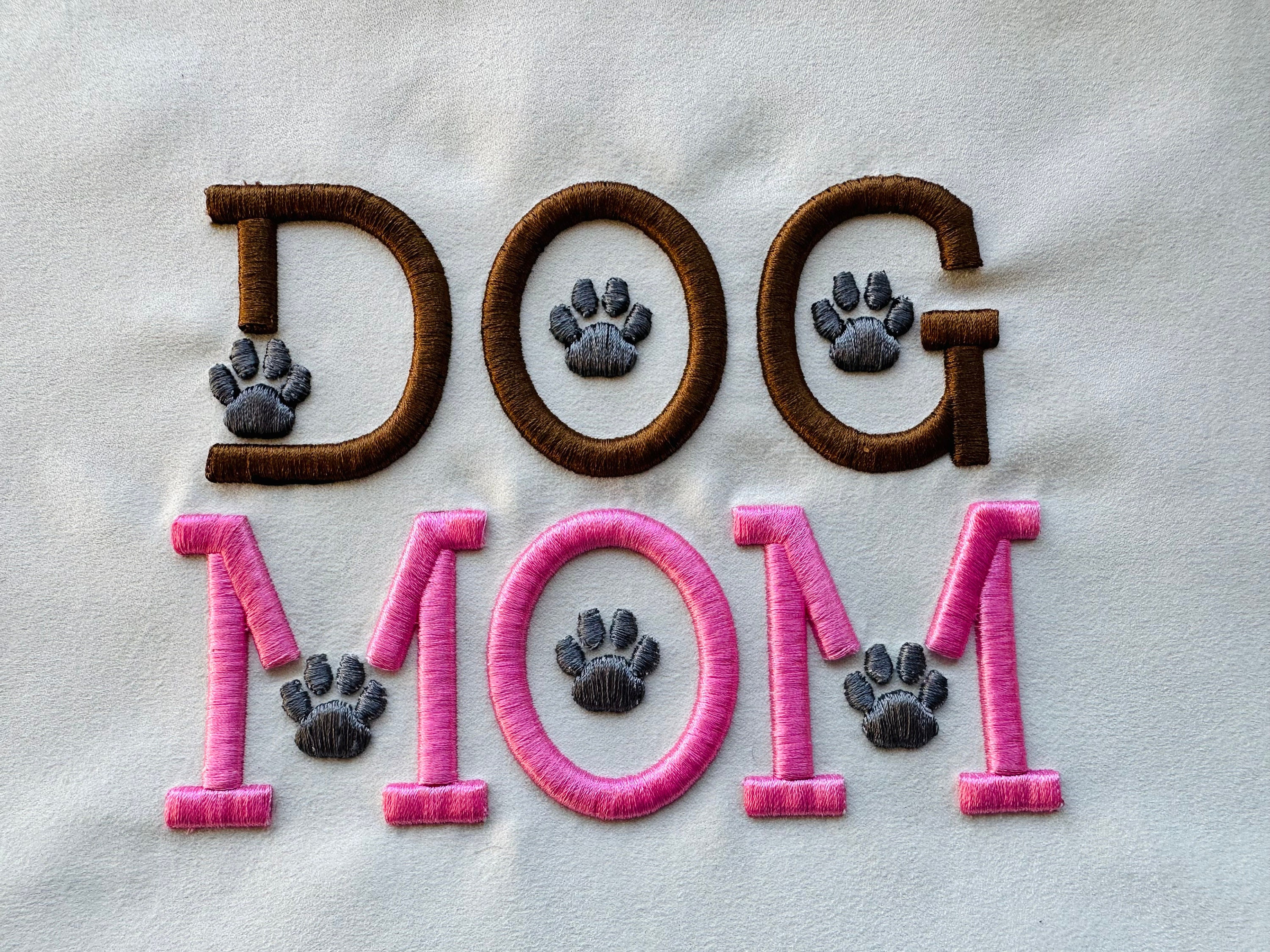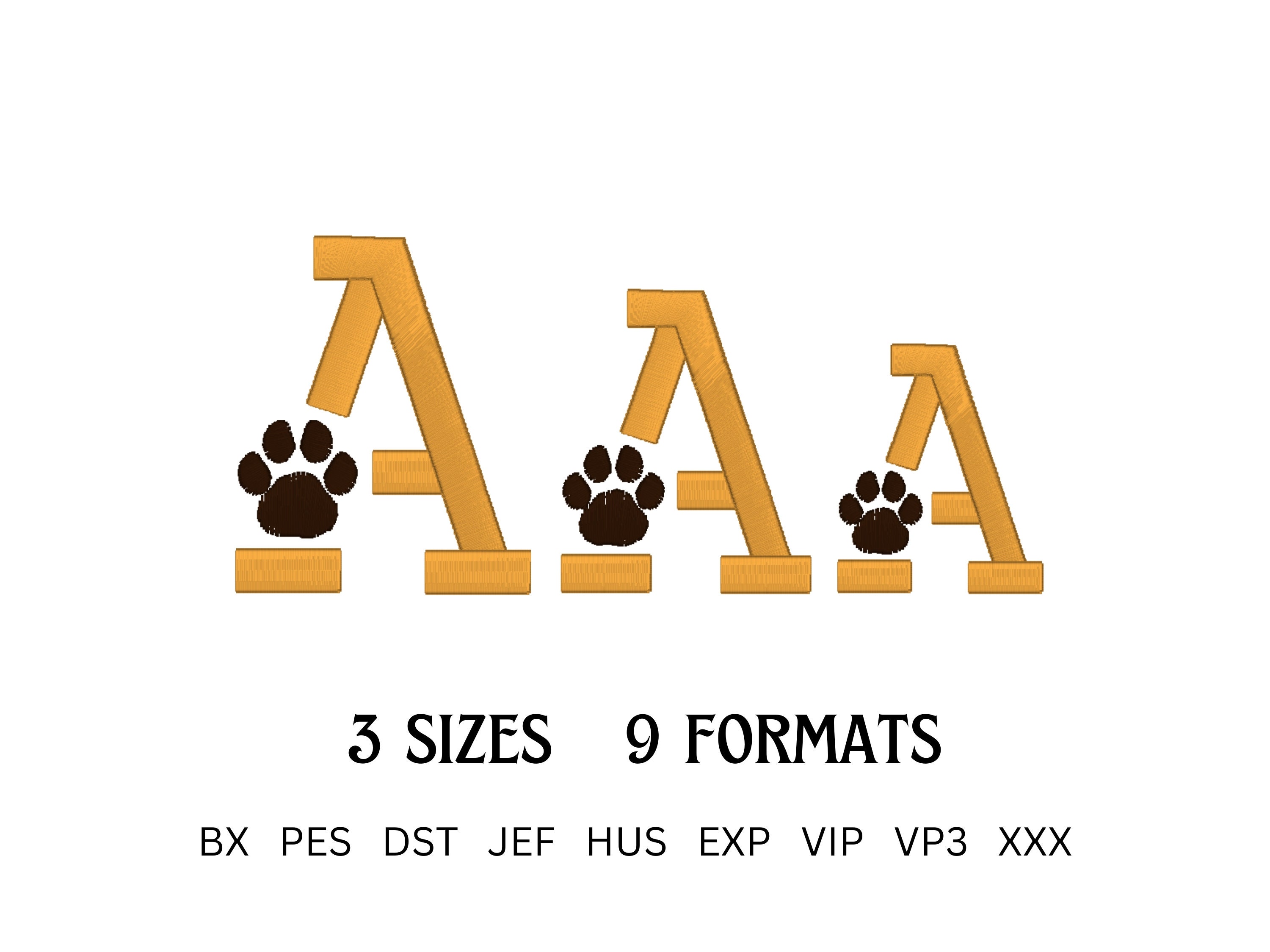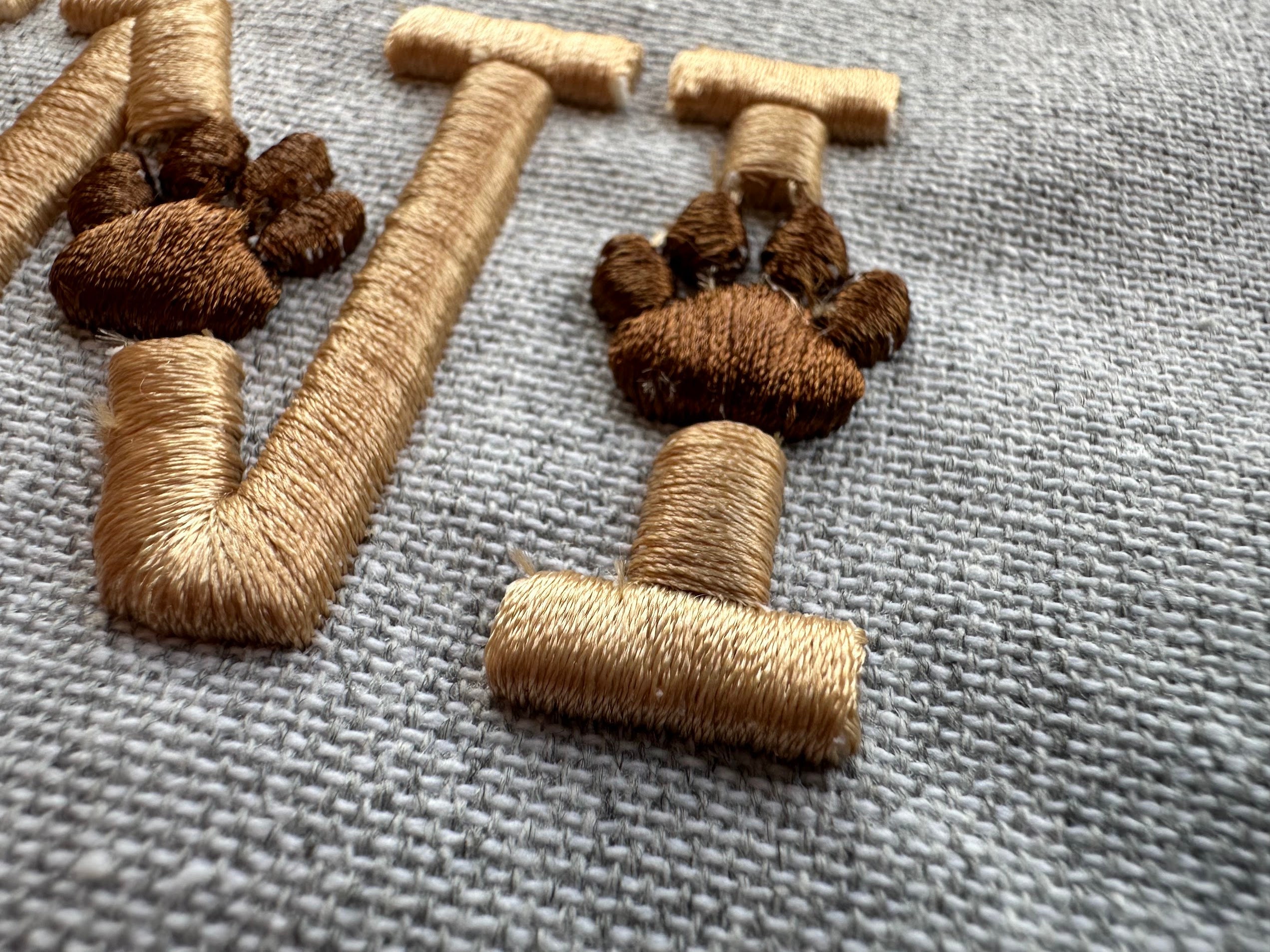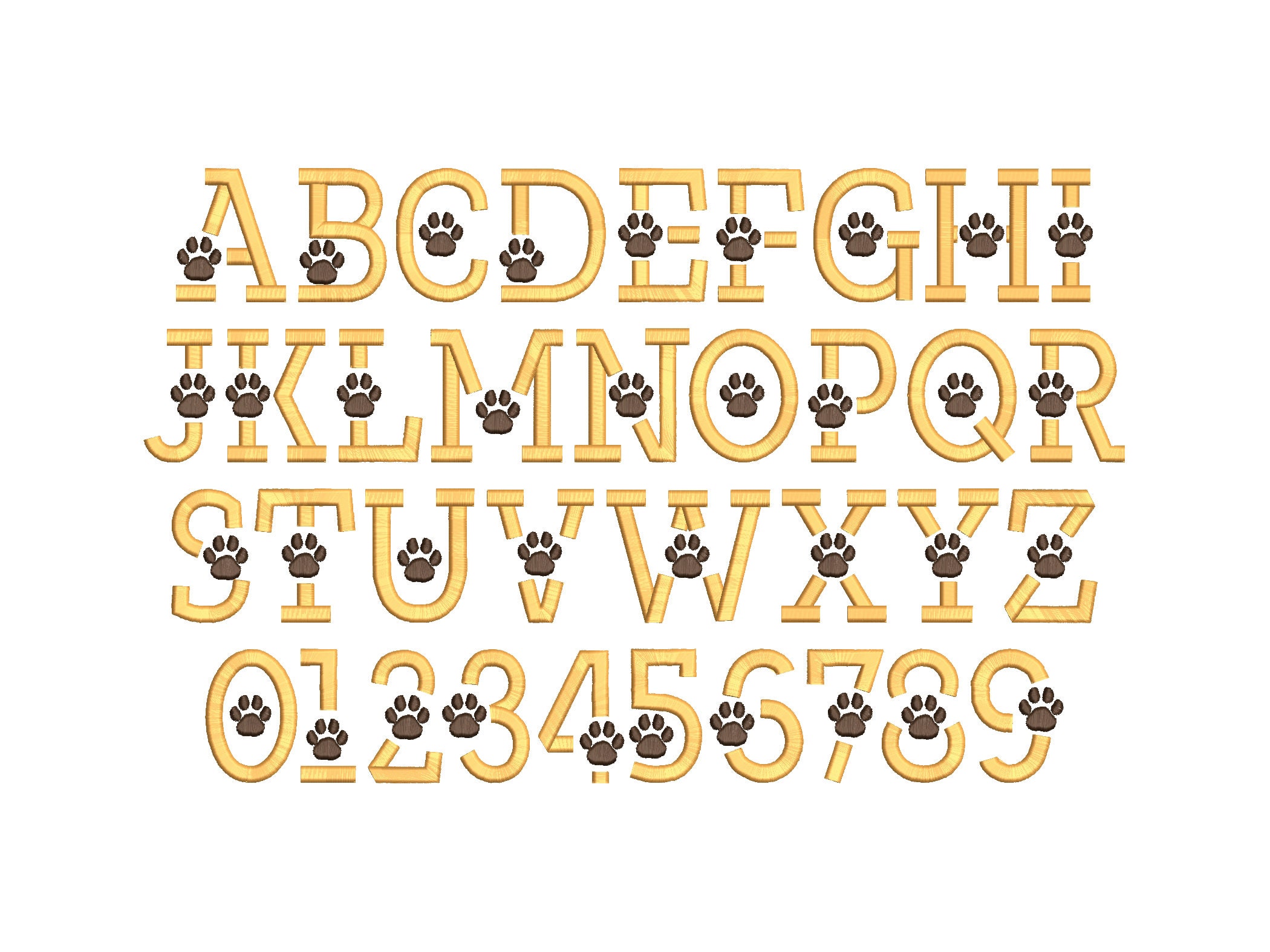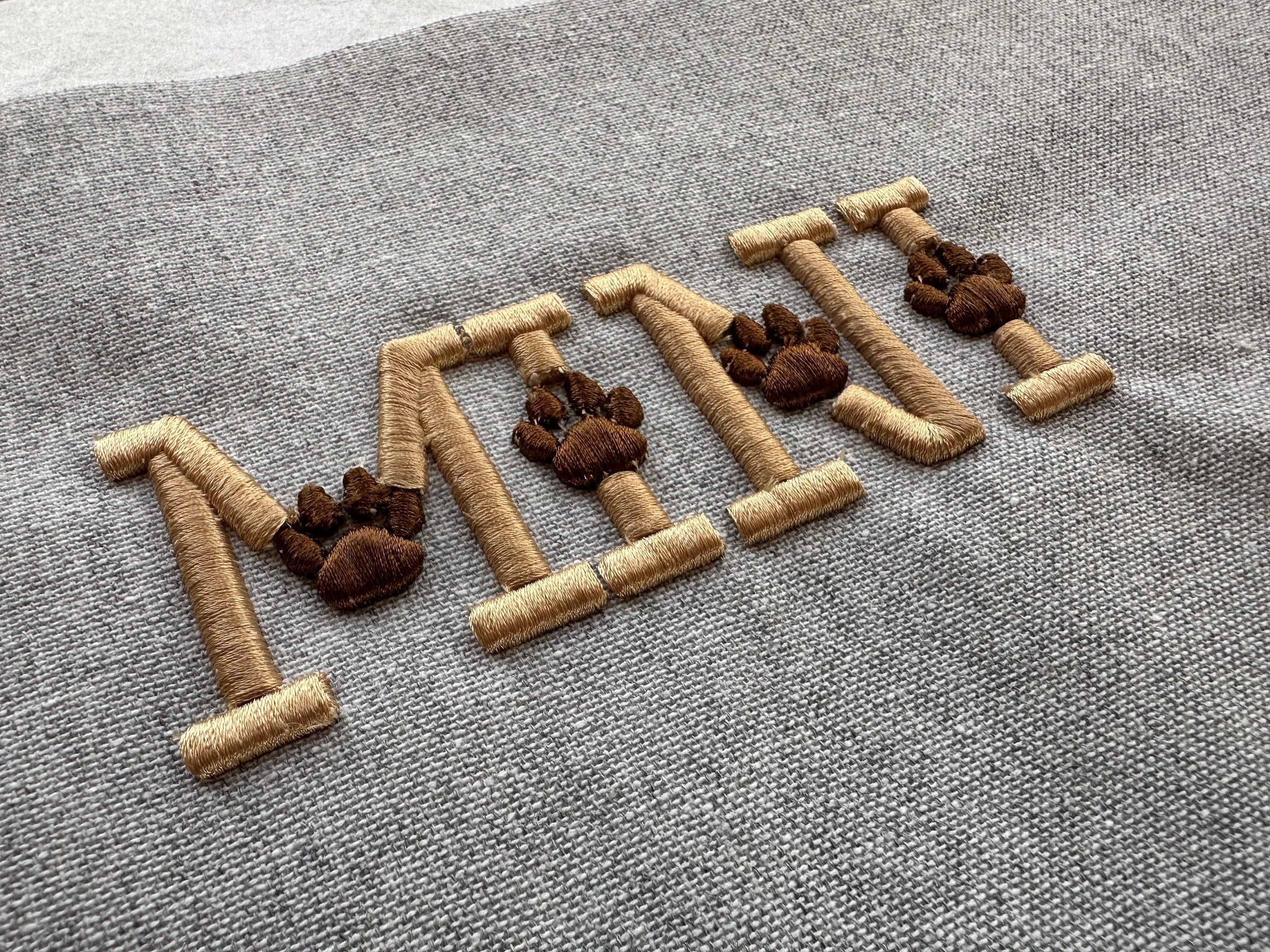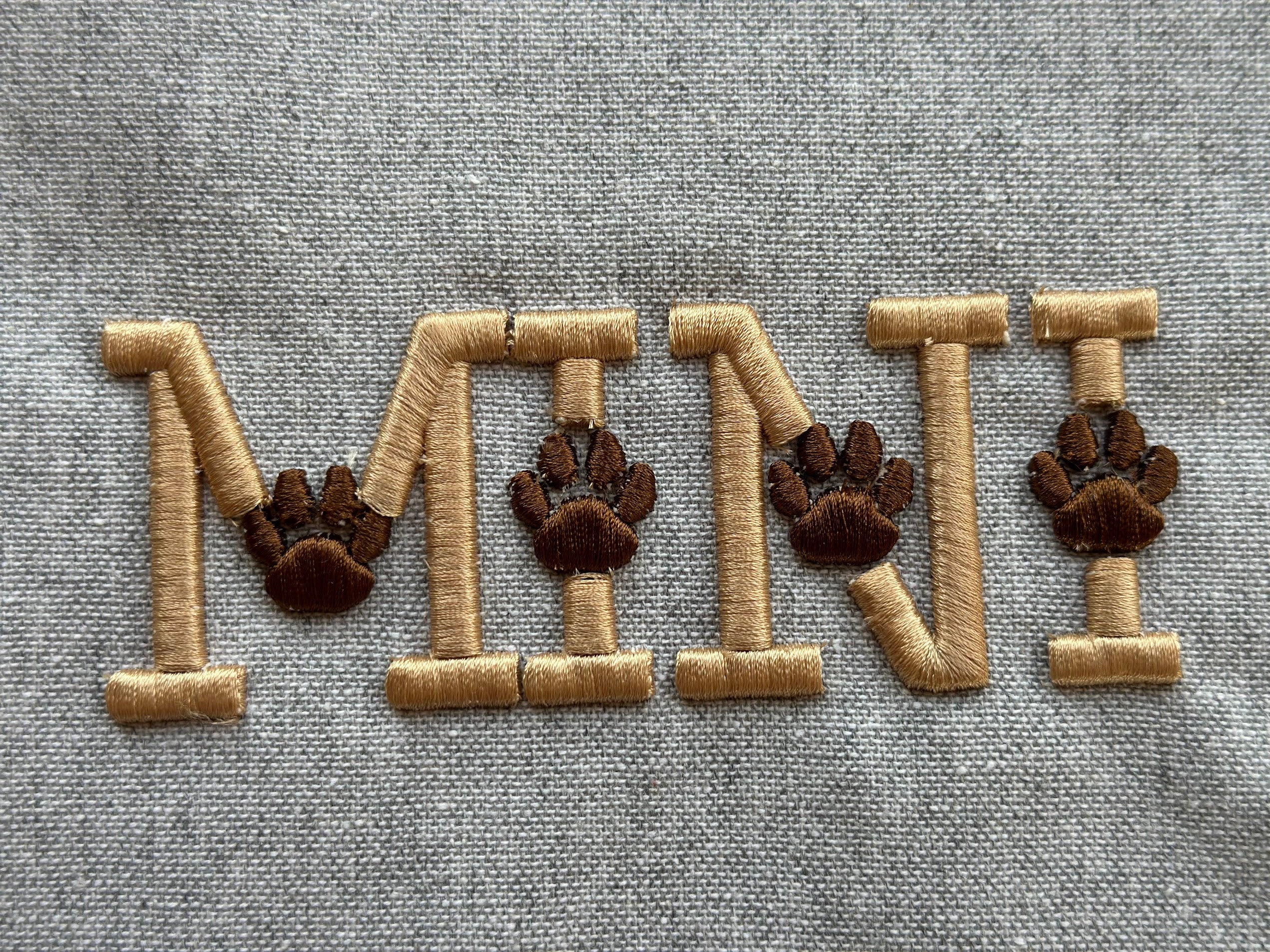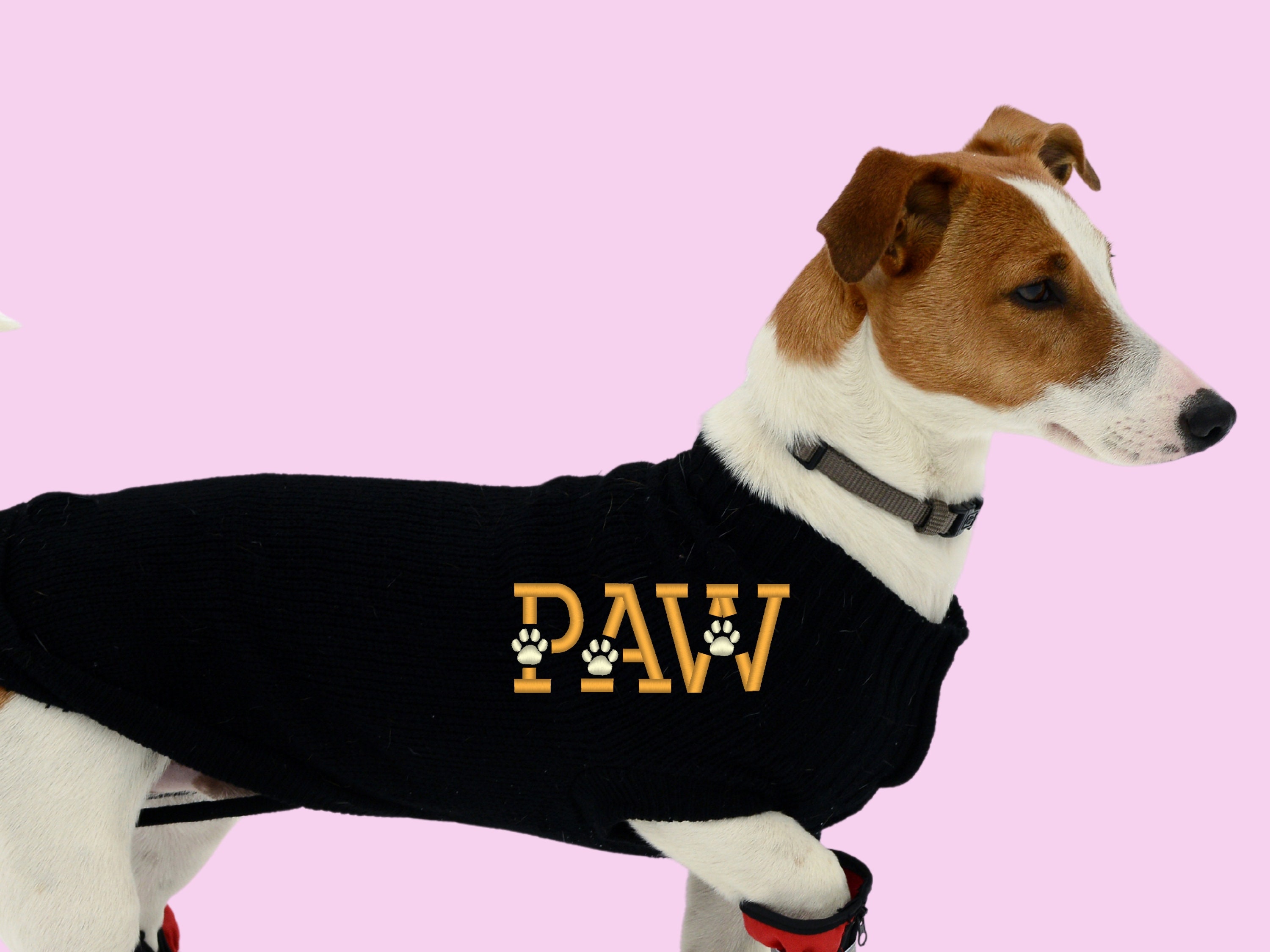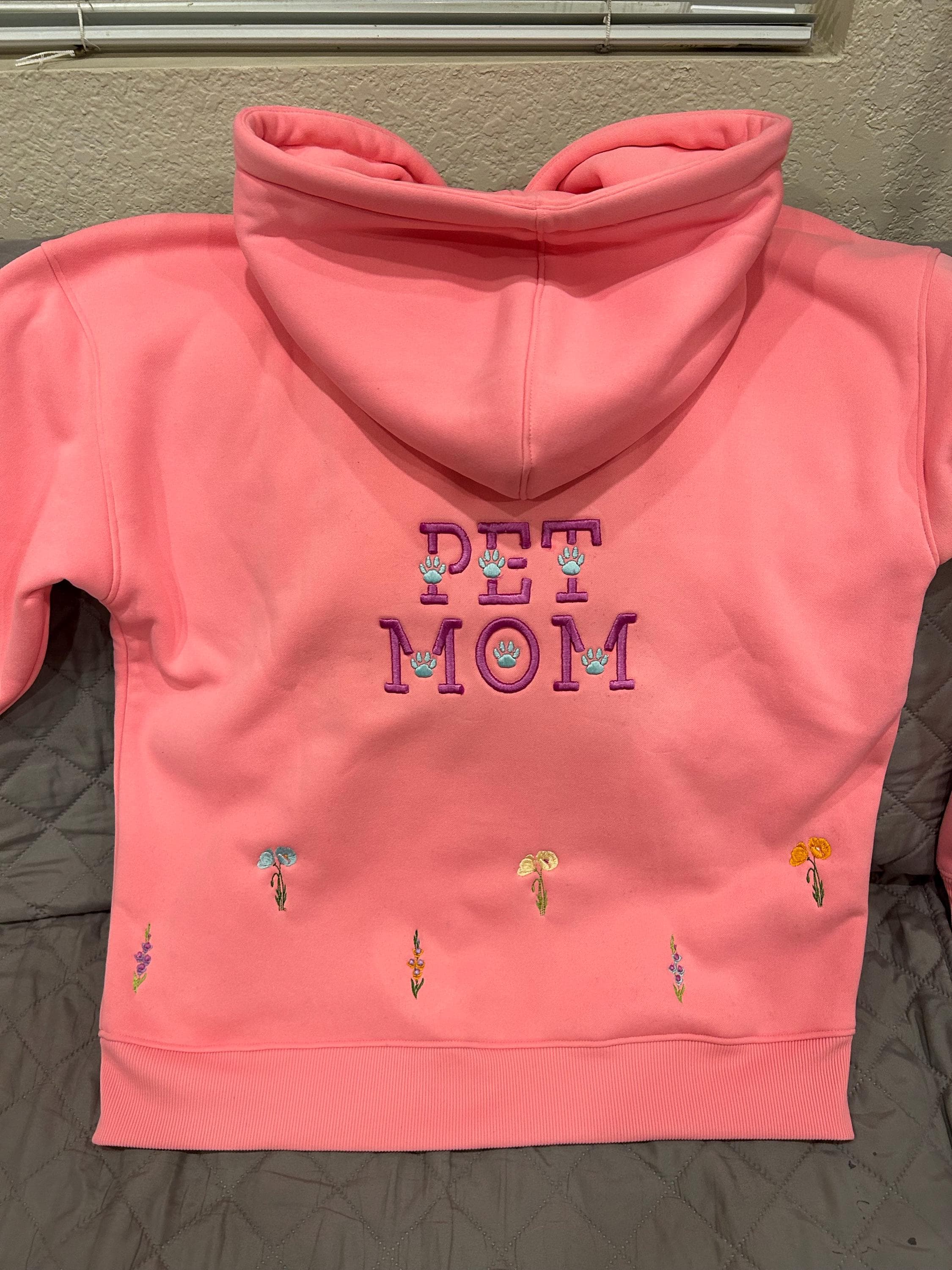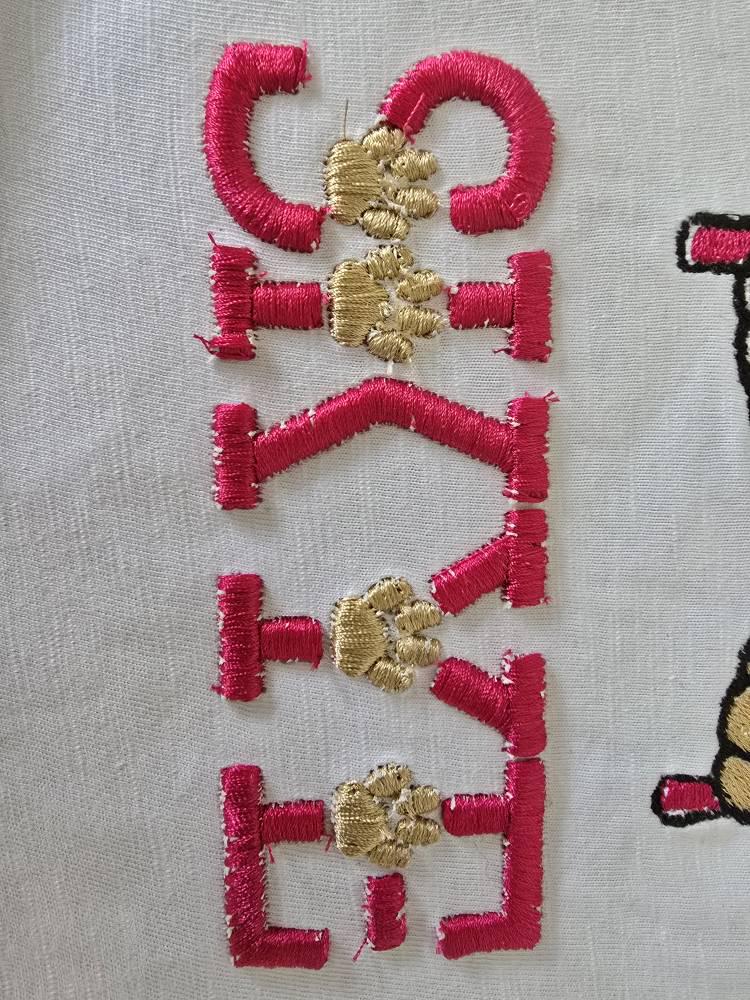
Puff Paw Embroidery Font puffy foam machine embroidery designs 3D raised Cute Paw pet alphabet monogram Block Font 1.8, 2.2, 2.6 inches, BX included
Whole alphabet A-Z uppercase and numbers 0-9.
For this design puffy foam is required. I'm using Gunold puffy foam thickness 3 mm.
This was my first attempt at using puff embroidery and Anna was good about providing tips on how to get a better outcome on my next attempt. The font design is very cute.